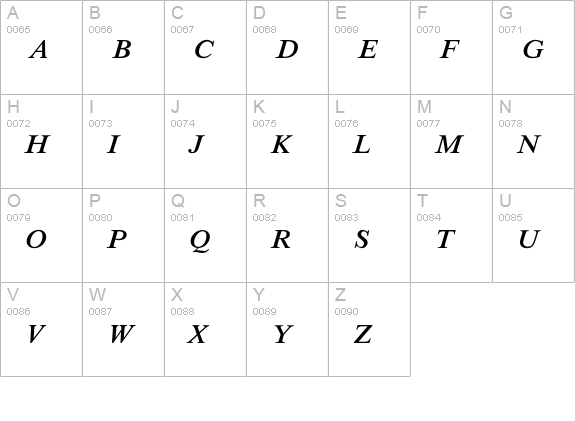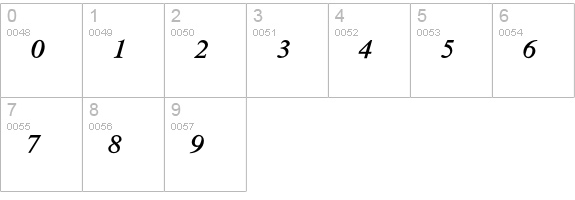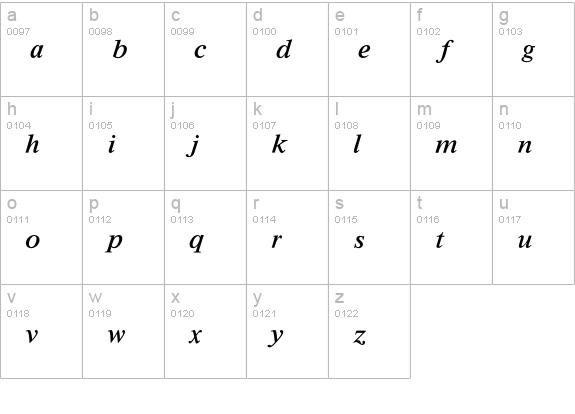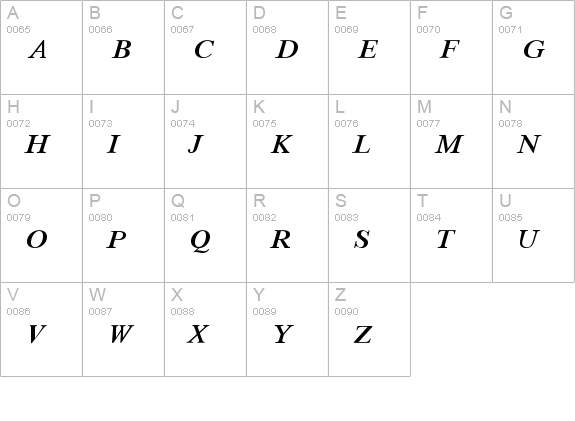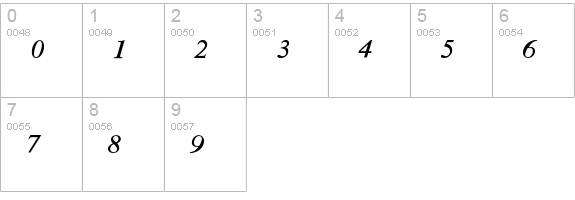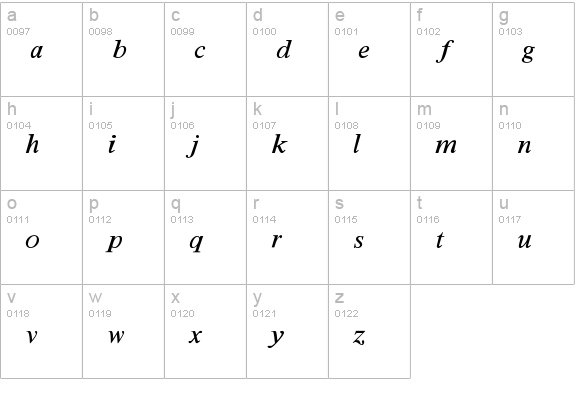
MathTechnicalP17 is a versatile and comprehensive font that is designed specifically for mathematical and technical applications. With its clean lines and precise geometry, this font is perfect for creating equations, diagrams, and other mathematical notations with utmost clarity and precision. What sets MathTechnicalP17 apart is not just its functionality, but also its availability. This font is freely available to download at FontsMarket.com, making it accessible to anyone who needs it. Whether you are a student, a teacher, a researcher, or a professional in the field of mathematics or technical sciences, MathTechnicalP17 is a valuable tool that can enhance your work and make it more visually appealing. The characters in MathTechnicalP17 are meticulously crafted to ensure legibility and consistency. Each symbol and letter is carefully designed to align perfectly with its counterparts, creating a seamless and harmonious visual experience. This attention to detail is what sets MathTechnicalP17 apart from other fonts in its category. In addition to its exceptional legibility, MathTechnicalP17 also offers a wide range of mathematical symbols, including operators, variables, and special characters. This comprehensive collection allows you to express complex mathematical concepts with ease and accuracy. Whether you are creating educational materials, technical documentation, or scientific publications, MathTechnicalP17 is the ideal font to convey your mathematical and technical ideas effectively. Its clarity, precision, and versatility make it a valuable asset in any professional or academic setting. So, why wait? Download MathTechnicalP17 today for free at FontsMarket.com and unlock the potential of this remarkable font. Experience the seamless integration of mathematical and technical elements in your work and elevate the quality of your presentations, papers, and projects. With MathTechnicalP17, you have the tools to make your mathematical and technical communication truly shine.